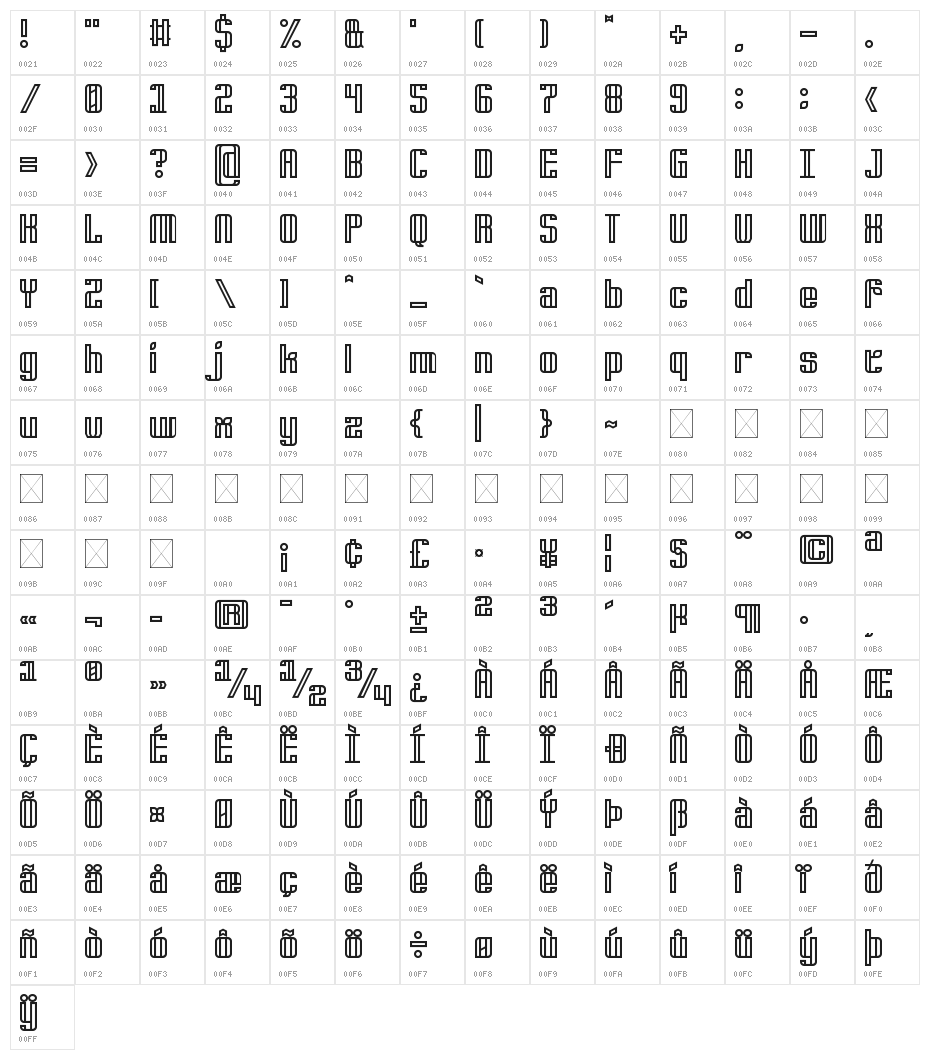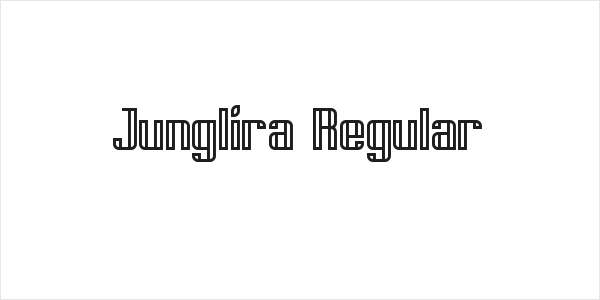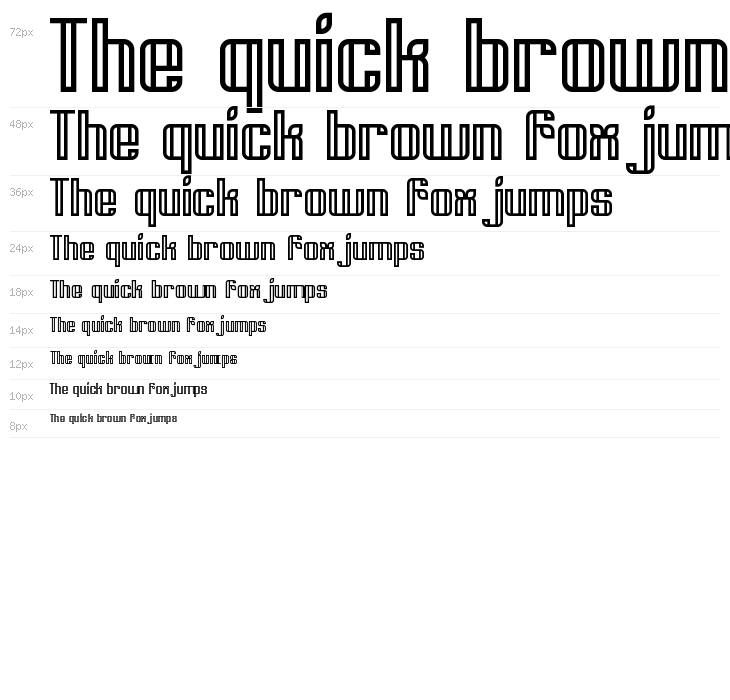
Junglira Regular Font
Junglira Regular Description
This font features a unique, geometric design with a modern and decorative flair. Each character is constructed with bold, uniform strokes that create a sense of structure and symmetry. The uppercase and lowercase letters maintain a consistent height, giving the font a monospaced appearance. The numerals and special characters follow the same design principles, ensuring a cohesive look across all glyphs. The font's open, airy design is accentuated by its wide character spacing, making it highly legible even at smaller sizes. Its distinct style is perfect for making a bold statement in any design project.